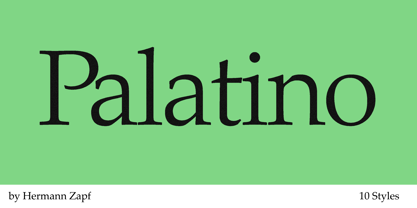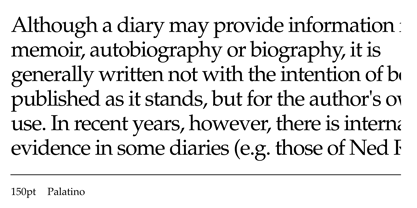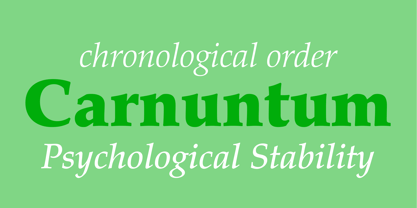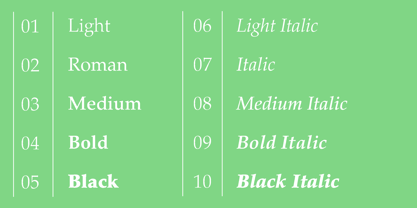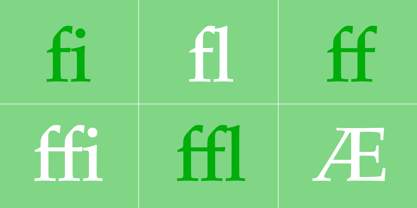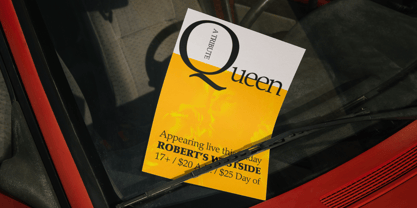
Palatino®
by Zapf Alphabets
The Palatino Font Family was designed by Hermann Zapf and published by Zapf Alphabets. Palatino contains 10 styles and family package options.
Palatino is the work of Hermann Zapf and became available in the late 1950s from D. Stempel AG in Frankfurt am Main. Zapf optimized Palatino’s design for legibility, producing a typeface which remained legible even on the inferior paper of the post World War II period. Zapf named the font after Giambattista Palatino, a master of scripts from the time of Leonardo da Vinci. Palatino is an Old Face font which proves that classic forms can still be used to create new typefaces.
Designers: Hermann Zapf
Publisher: Zapf Alphabets
Foundry: Zapf Alphabets
Original Foundry: Stempel
Design Owner: Linotype